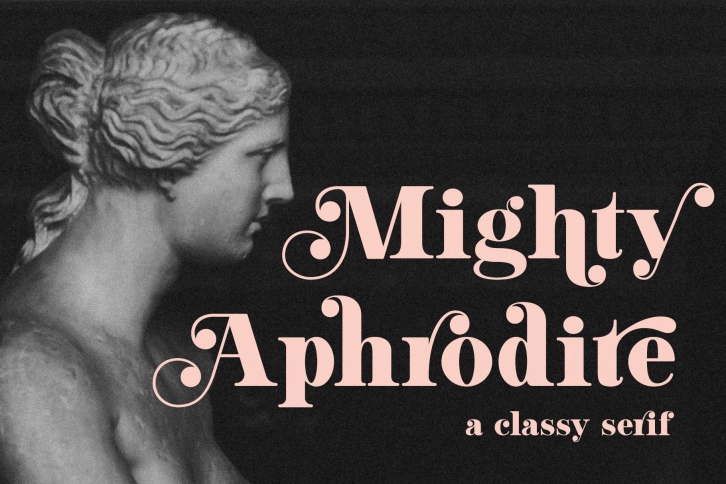
Mighty Aphrodite A Classy & Modern Serif is a beautiful font that was designed by Megs Lang. It's a great choice for designers and creatives who need such a font. It was released on June 30, 2021 and the file size is 17.28 MB. Mighty Aphrodite A Classy & Modern Serif may give a more youthful, expressive and casual look to your project. It is a very beautiful, refined, elegant, and high-quality font.